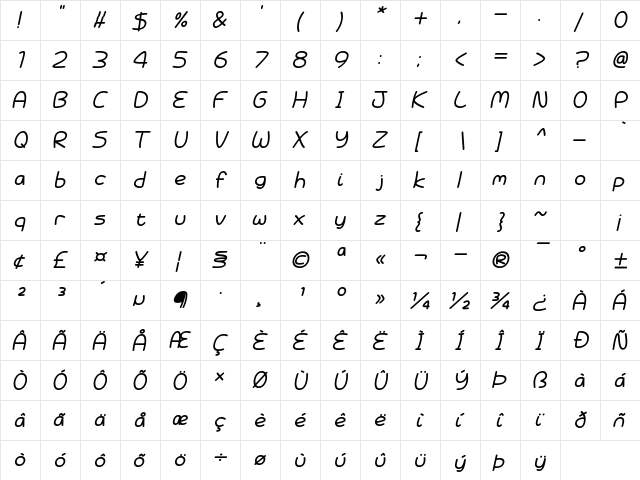
Battenberg and Custard Italic
Design Context for Battenberg and Custard Typeface
Battenberg and Custard offers clean, dependable letterforms without strong stylistic allegiance, making it a practical choice for designers who need flexibility. The slanted form adds forward momentum and visual energy.
Pro Tip: Try Battenberg and Custard for annotation and caption copy alongside an upright companion — the contrast in angle creates a dynamic but ordered typographic system.